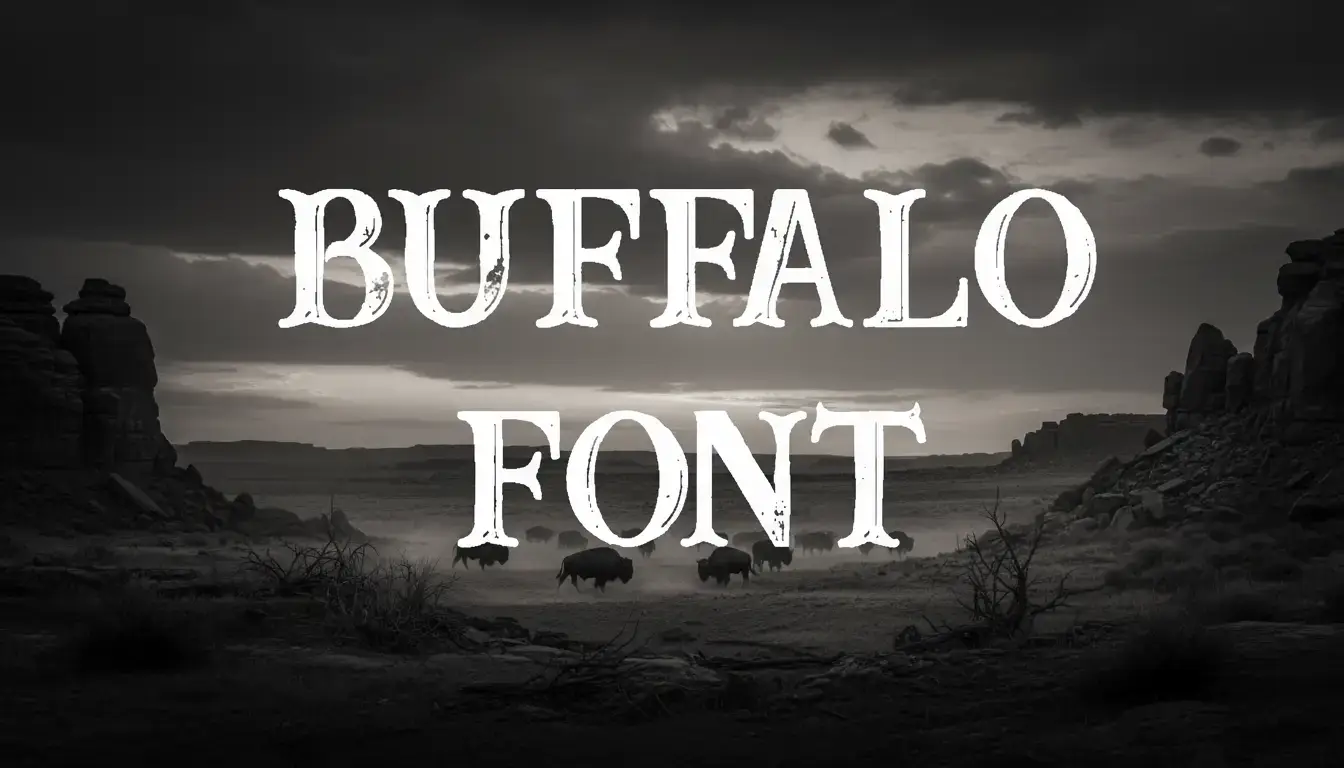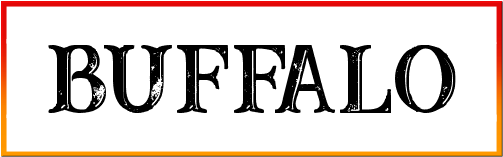
Buffalo Font
Buffalo
Buffalo is a Western font created by cruzine. It has the bold, wood-type look of Wild West wanted posters and saloon signs. It's a free download, and you can try it with your own text in the preview above first.
- Designer: cruzine
- Font styles: 1 (Inline 2 Grunge)
- Glyphs: 92
What You Can Type With Buffalo
Buffalo covers the full alphabet in upper and lowercase, plus all ten numbers, so you can set names, dates and prices without switching fonts. Common punctuation such as &, !, ? and @ is included as well. It doesn't include accented letters such as é or ñ, which makes it an English-only font.
Where Buffalo Works Best
Designers usually reach for fonts like Buffalo when they're making rodeo posters, saloon signs and country music flyers. Try it in brown, rust or cream on a paper texture for the full old-west look.
Does Buffalo support accented letters?
No. Buffalo has no accented letters such as é, ñ or ü, so it's best for English text.
What fonts pair well with Buffalo?
A sturdy slab serif or a simple serif works well for the smaller text.